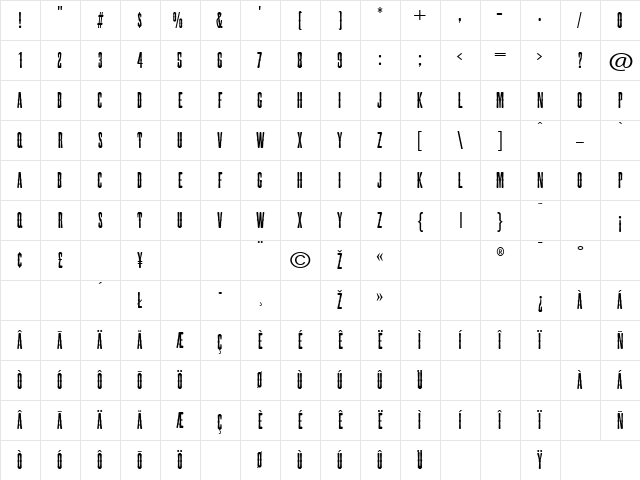
Torpedo Regular
Foundry: Digitized by Dan X. Solo. Software by Dover Publications, Inc
Design Context for Torpedo
Torpedo is a composed and adaptable typeface that performs quietly and consistently across a wide range of design contexts.
Who designed the Torpedo Regular font?
This font was published by Digitized by Dan X. Solo. Software by Dover Publications, Inc. Check the technical specs section for copyright and designer details.